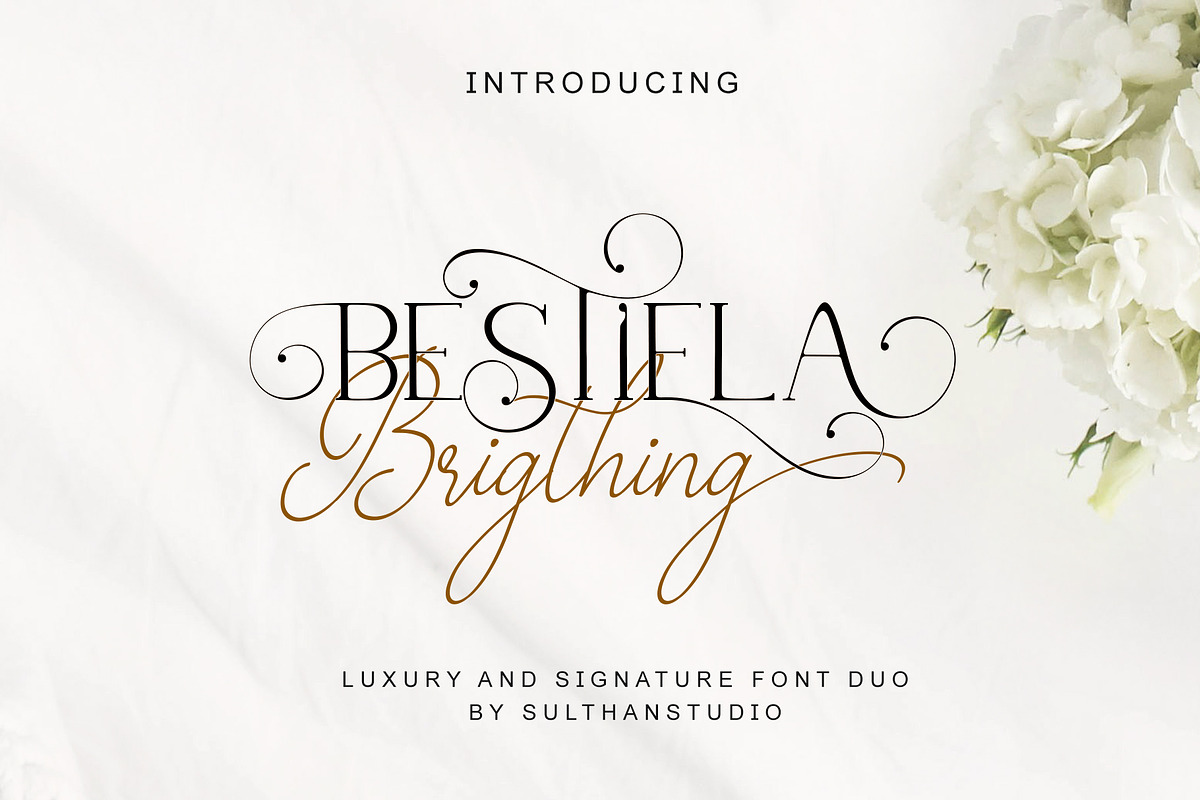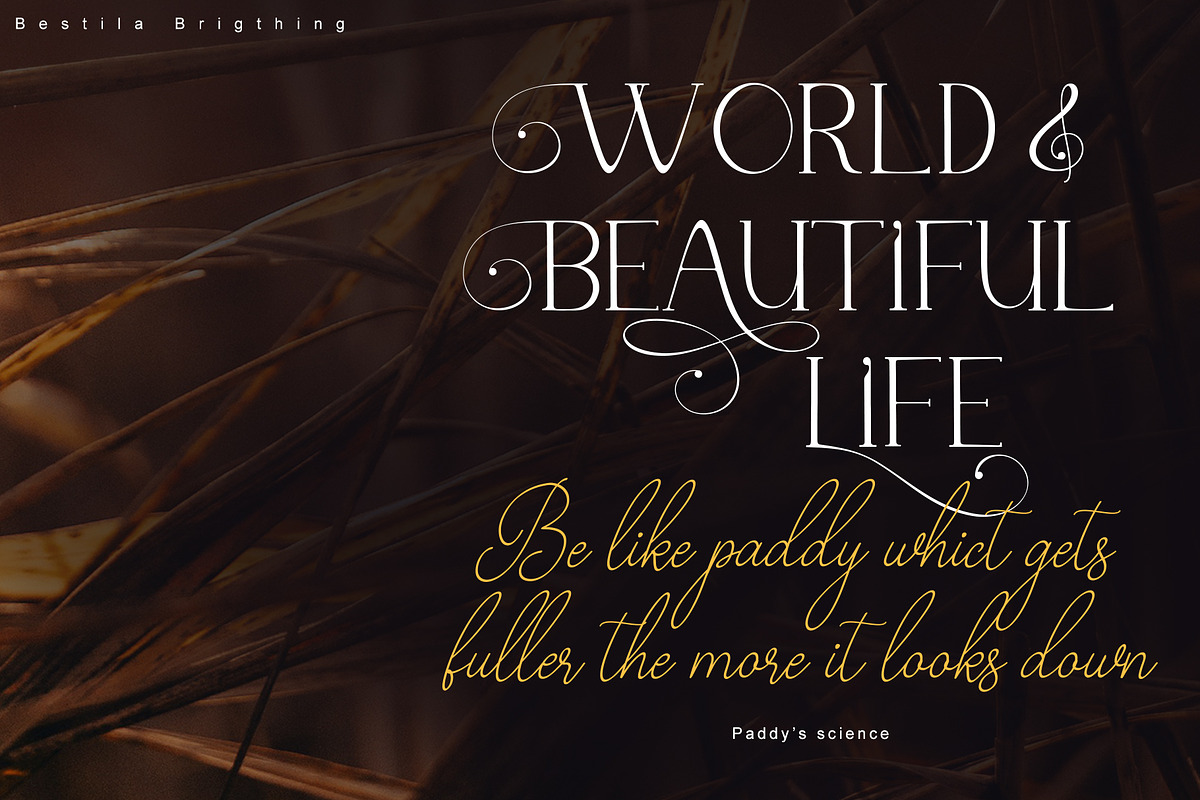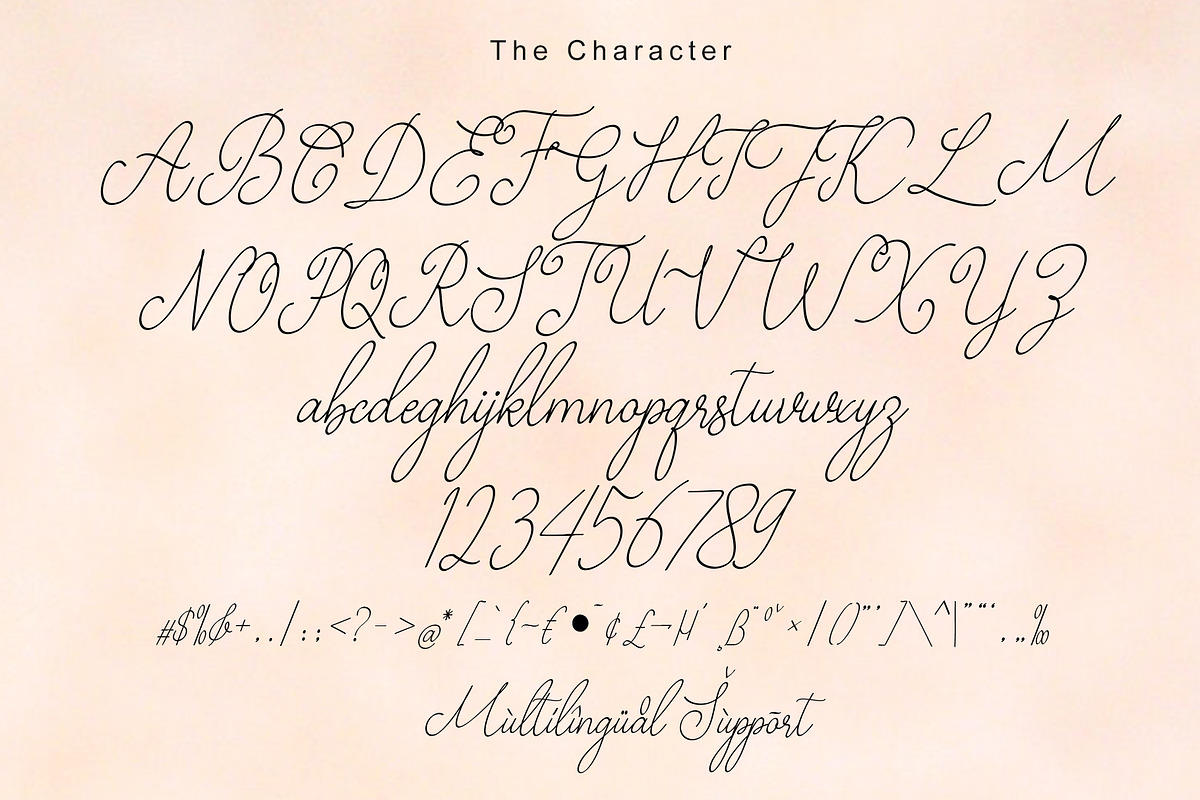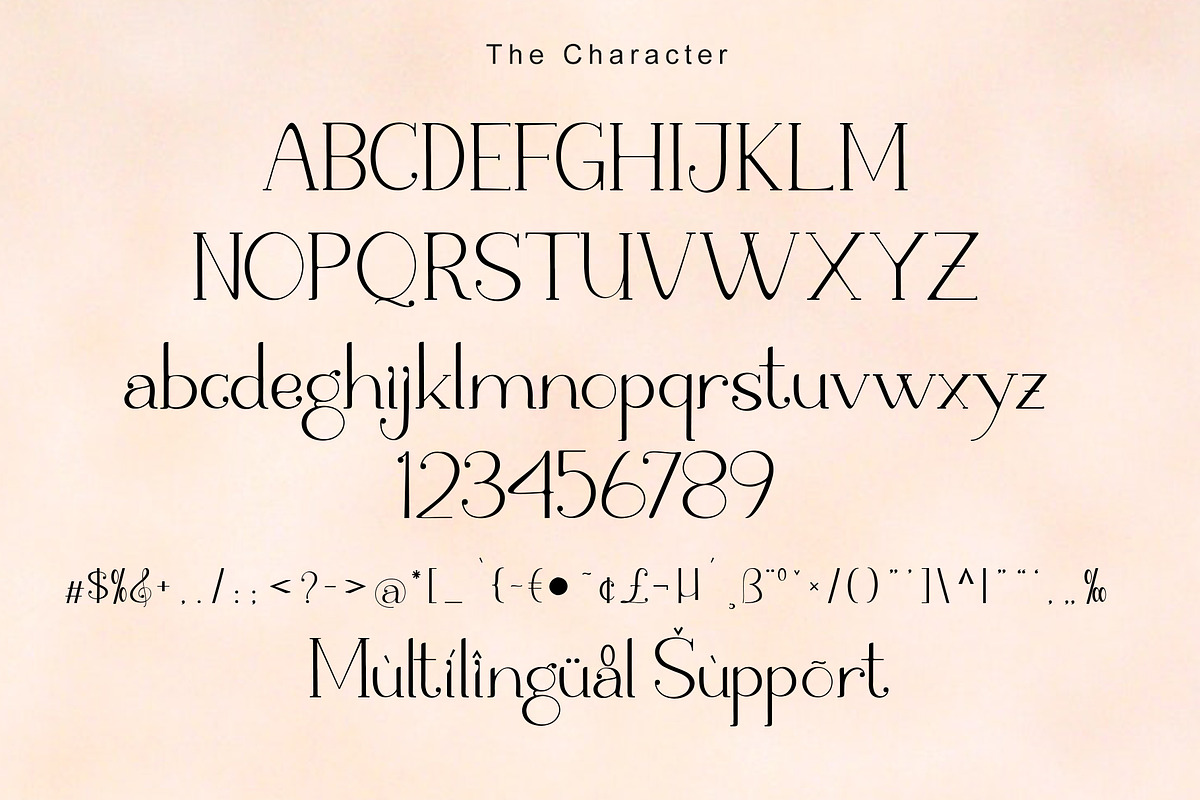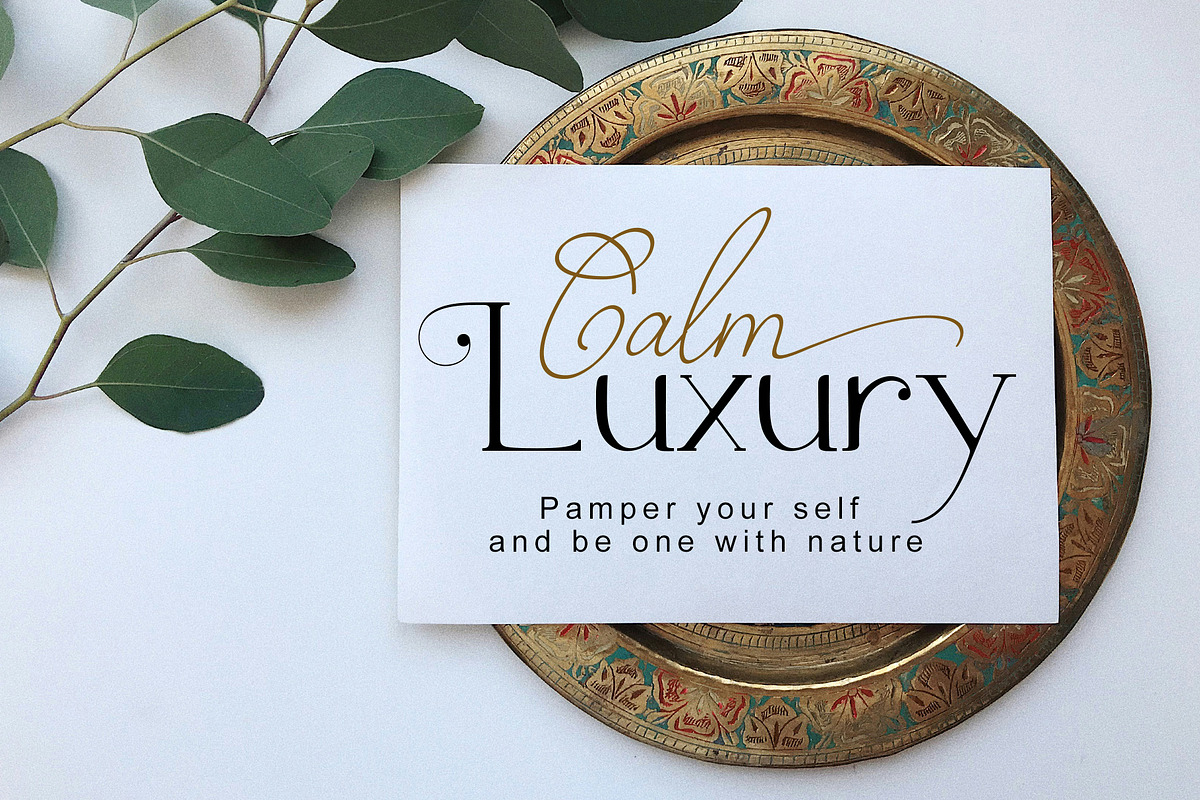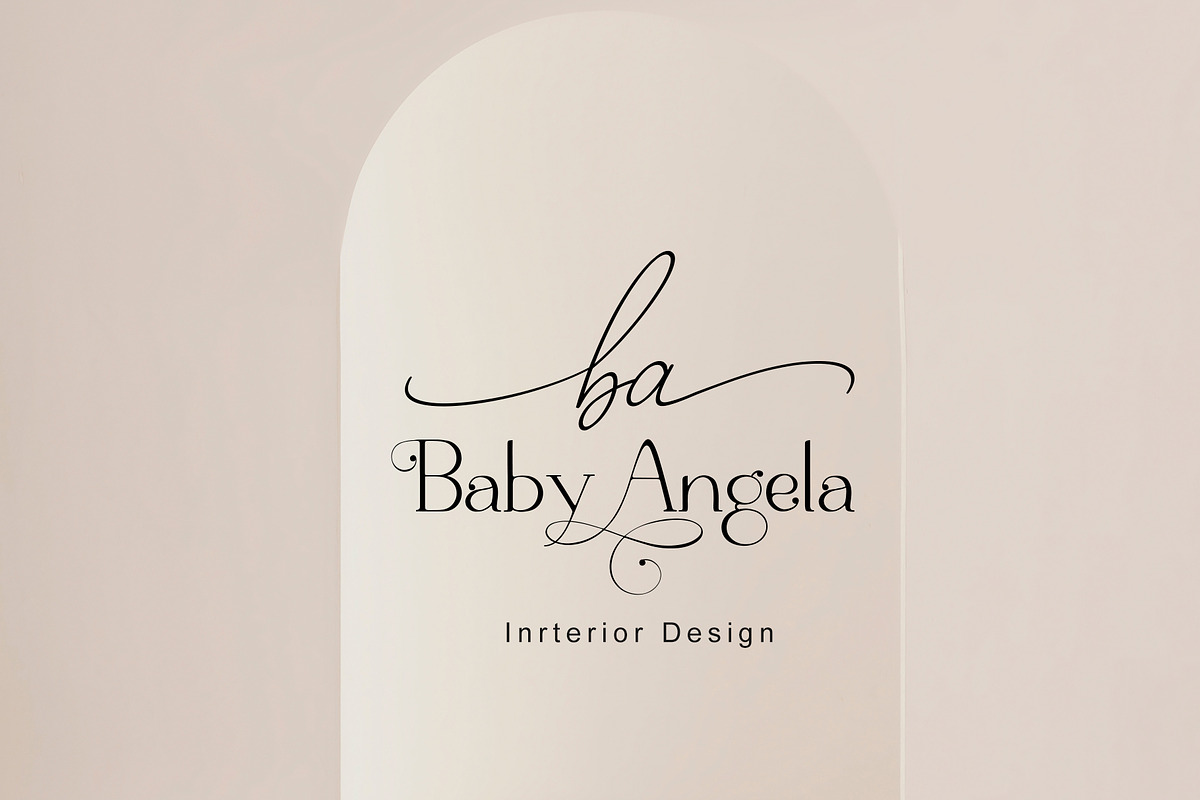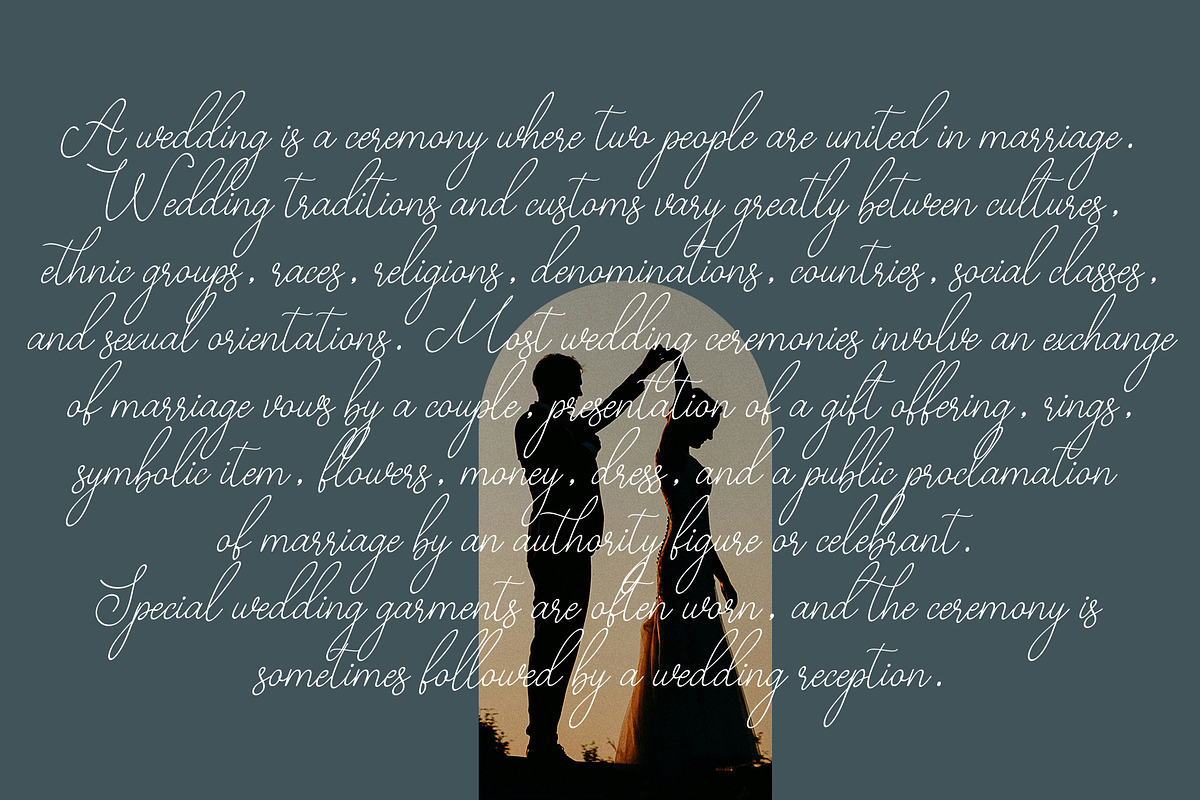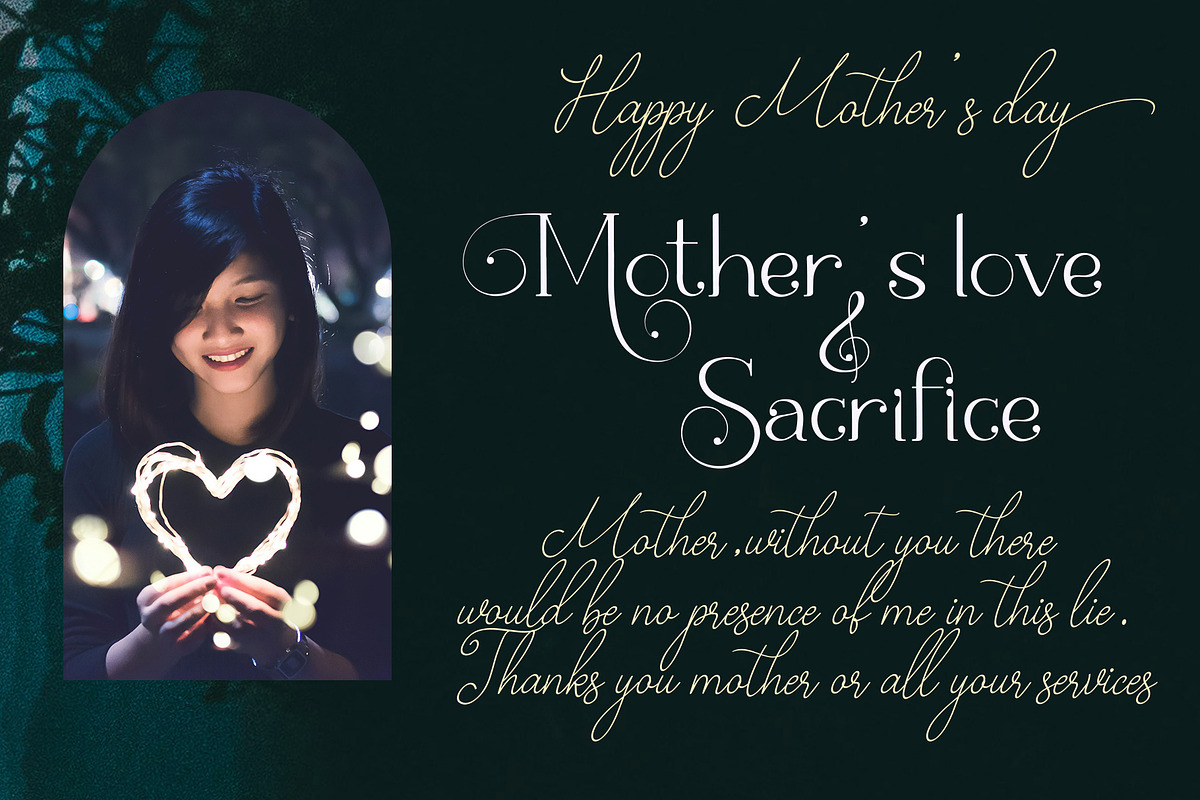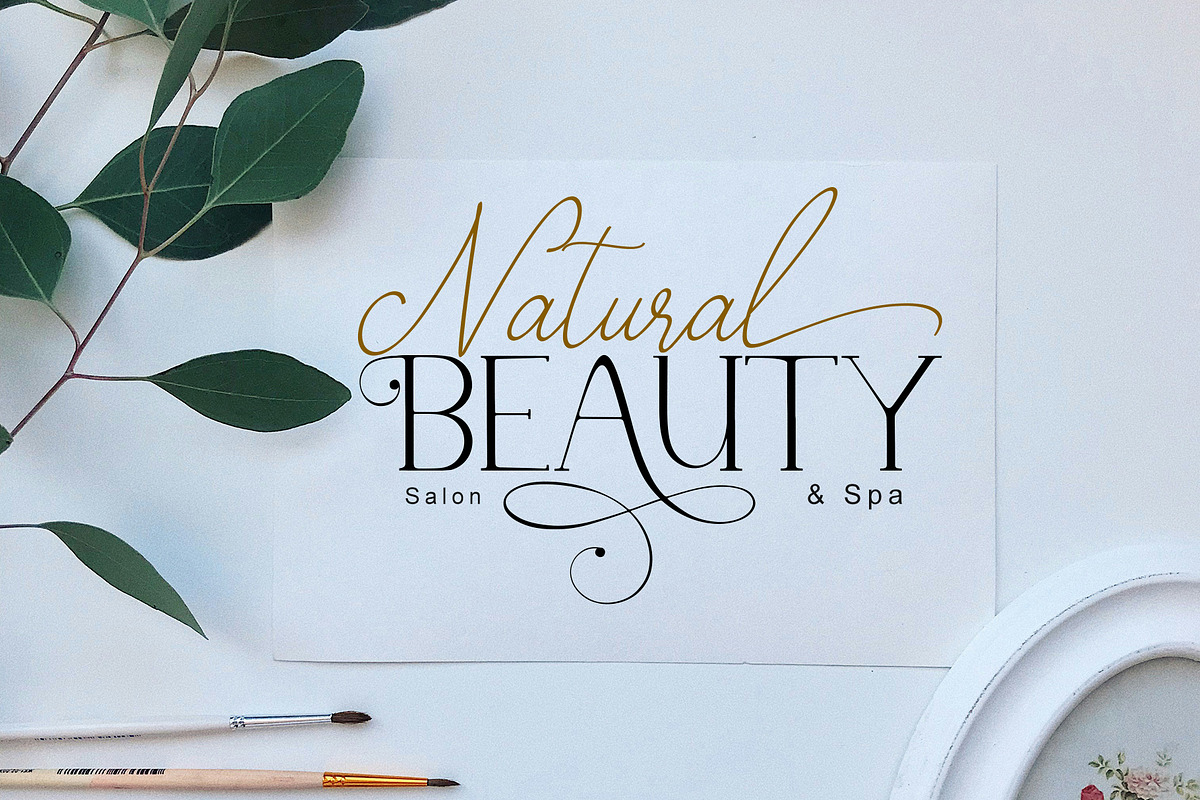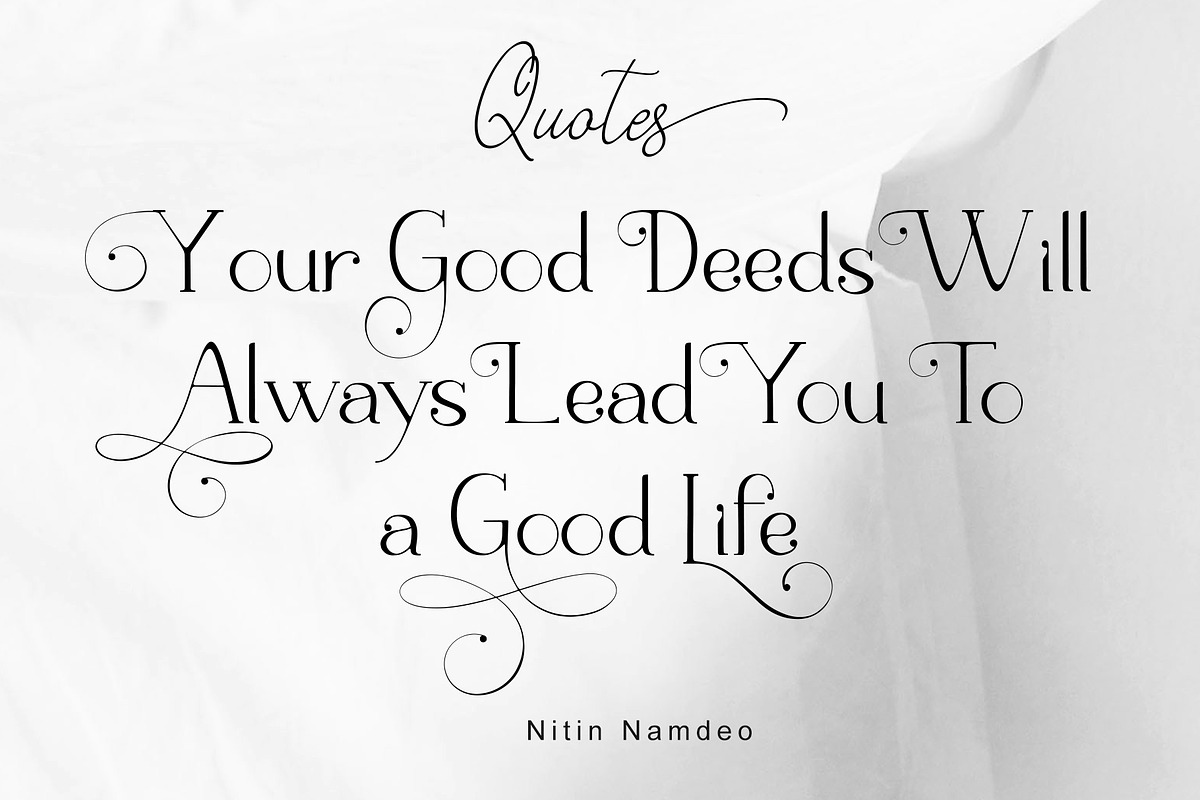
Bestiela brigthing
Bestiela brigthing- two very epic fonts that combine handwriting with a type face font. A very beautiful font combination can add a touch of style and elegance to your design The handwritten font has a natural texture as well as swashes on the front and back of the lowercase letters Meanwhile, this elegant type face font has many alternative letters, for example M.1 - M.5 Don't miss these two wedding fonts for your collection because they are extraordinary and can be used anywhere and anytime. These fonts are very suitable for wedding invitations, greeting cards, logos, branding and many more. equipped with uppercase letters, lowercase letters, numbers, punctuation, swashes, alternatives, ligatures, and also language support, also coded with PUA so it is easy to access.